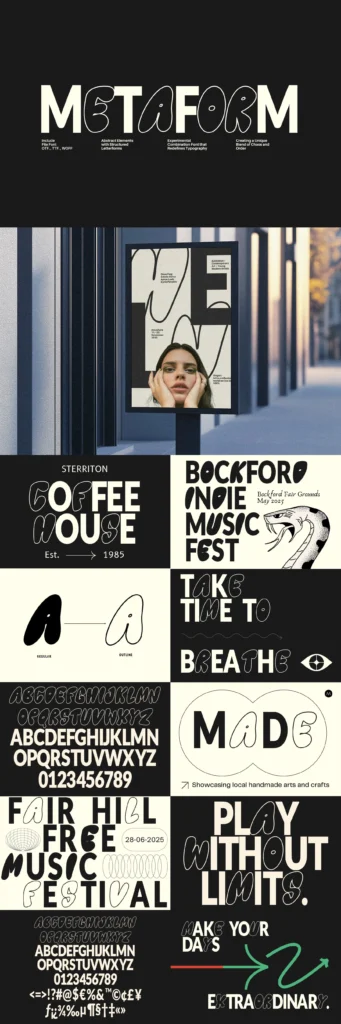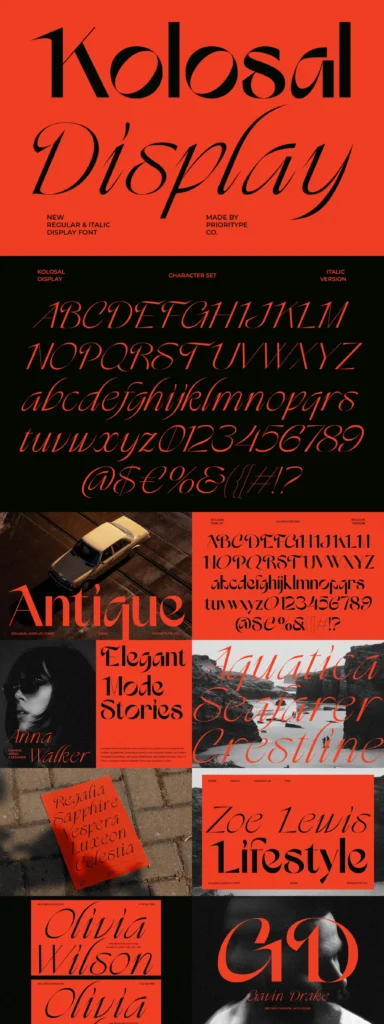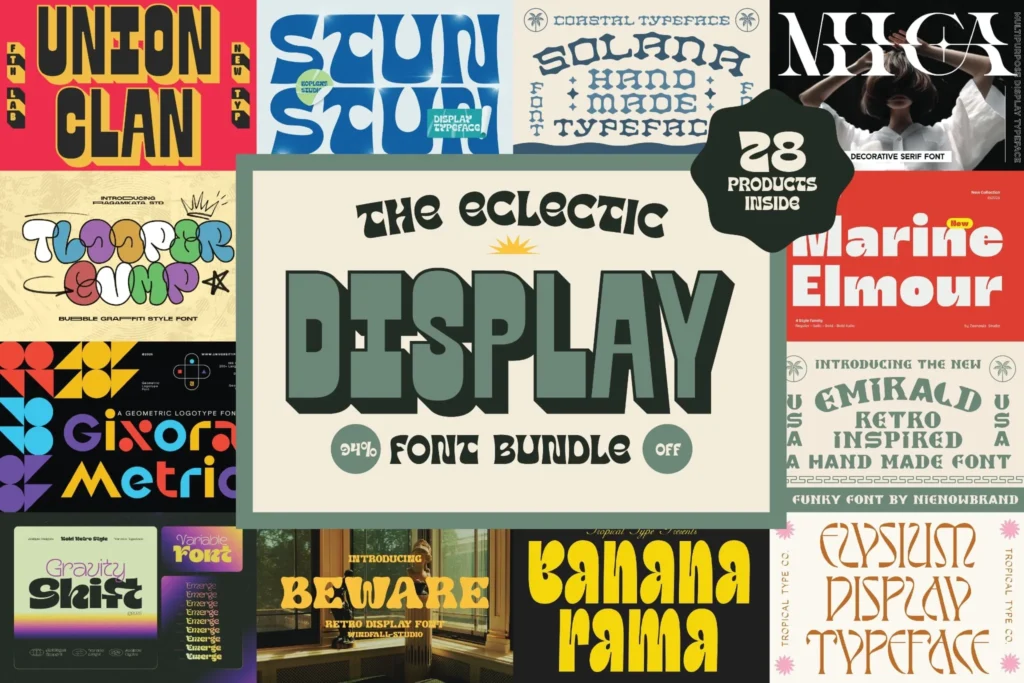
Unleash your creativity with
The Eclectic Display Font Bundle
, a vibrant collection of 28 bold and unconventional typefaces designed to make your projects pop.
This deal is packed with layered typefaces, combination fonts, chunky sans serifs, and more unique products that demand attention.